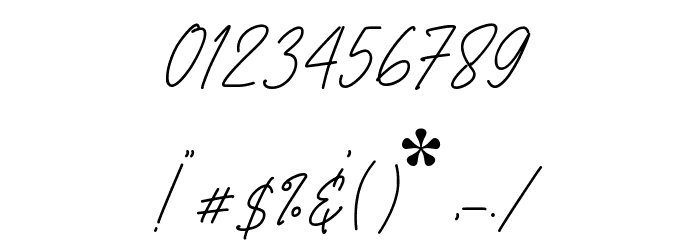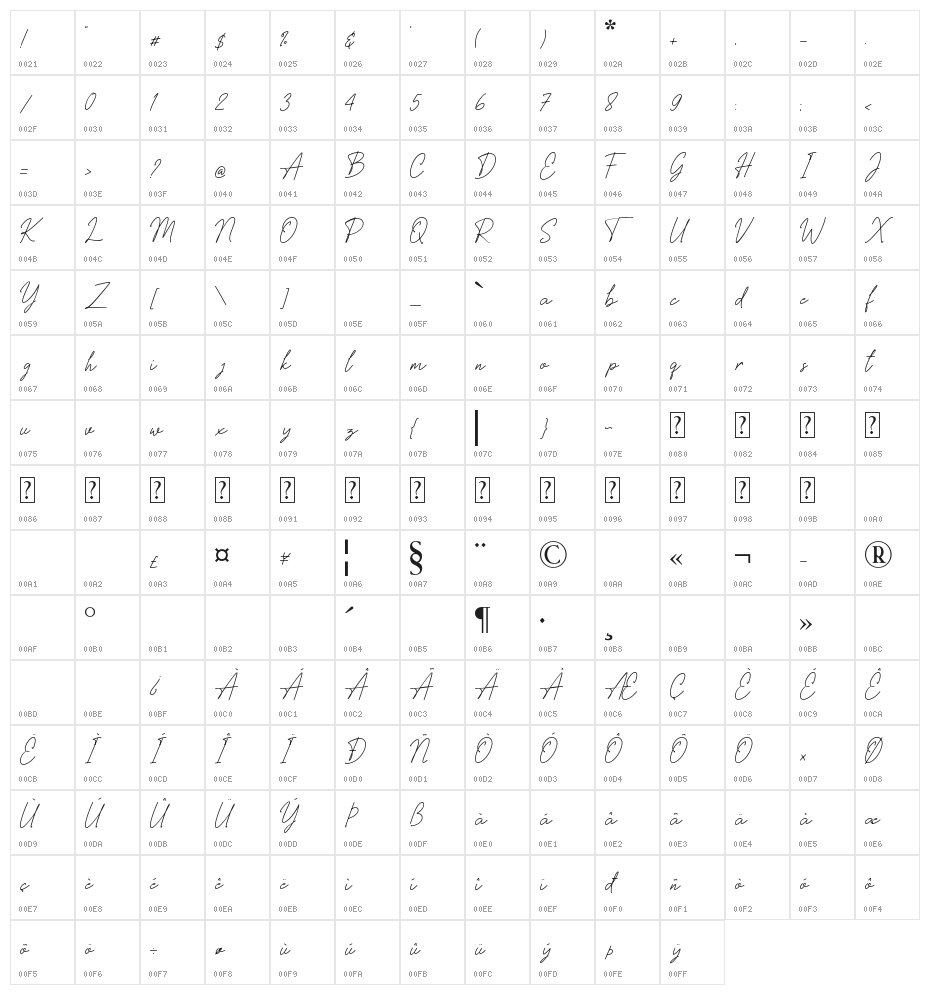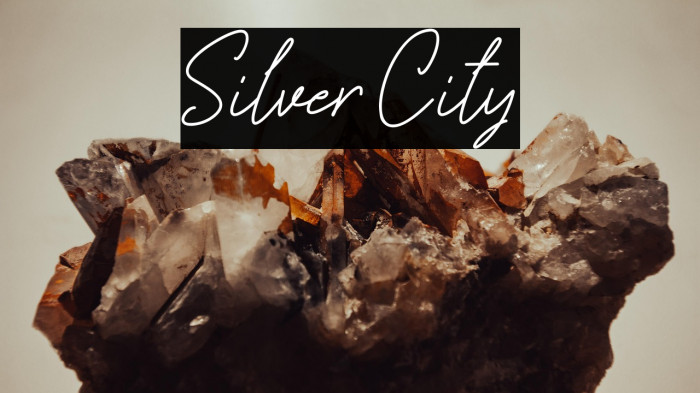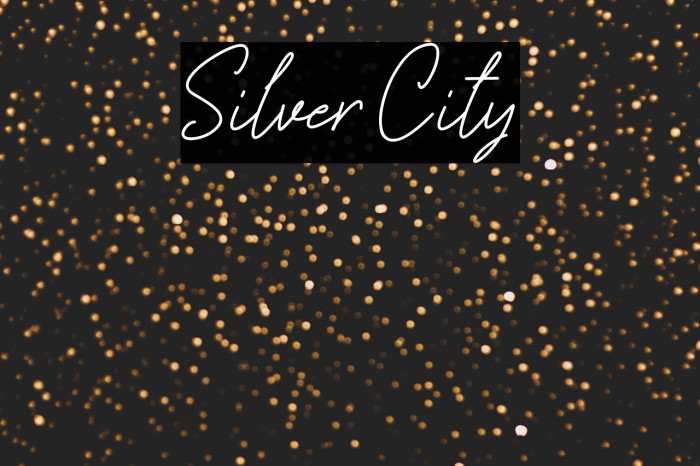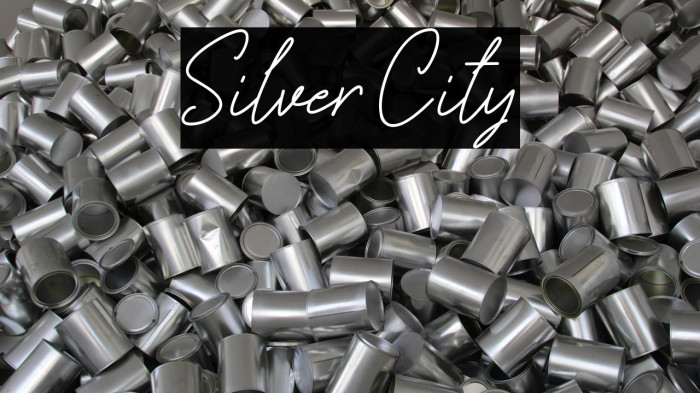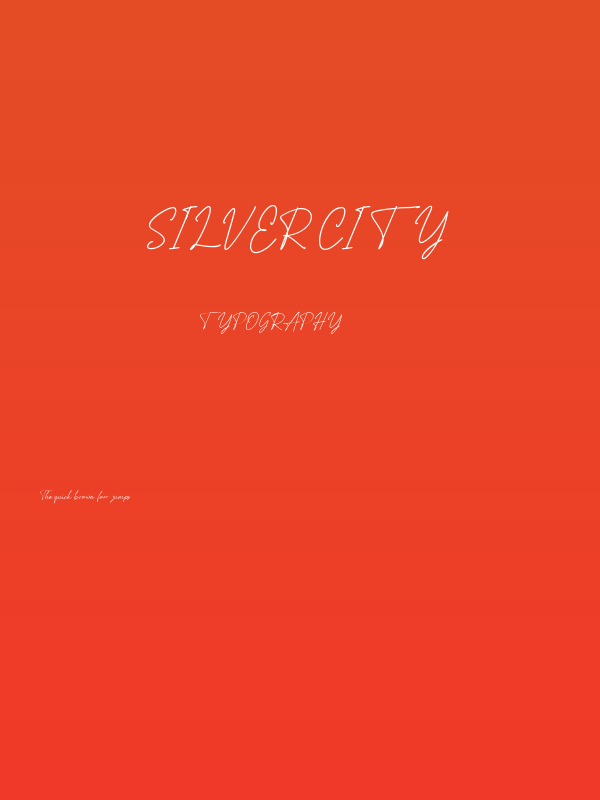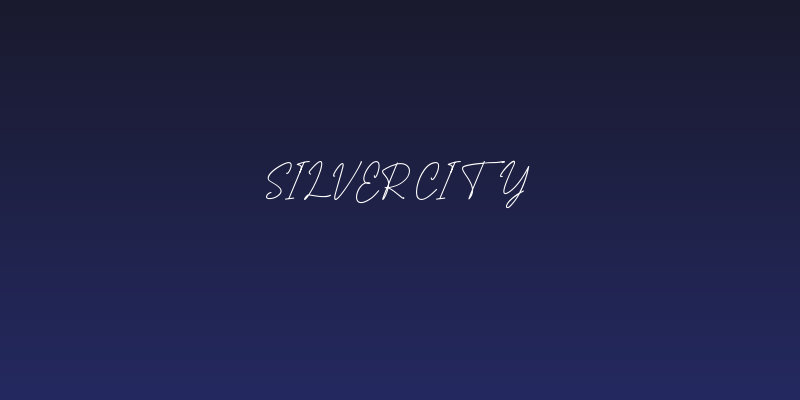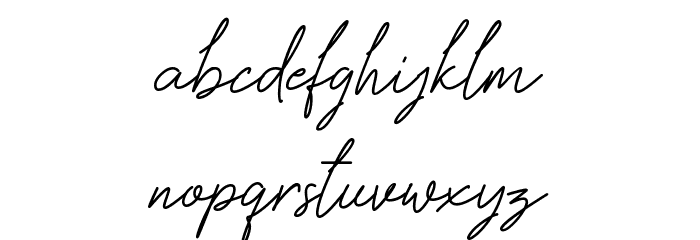
Silver City Font
Silver City Description
This elegant script font features a flowing, handwritten style that exudes sophistication and charm. The characters are gracefully connected, with smooth curves and delicate strokes that mimic the fluidity of natural handwriting. The uppercase letters are slightly more ornate, adding a touch of formality, while the lowercase letters maintain a consistent, flowing rhythm. The numerals and special characters are designed to complement the overall aesthetic, ensuring a cohesive look across all text. This font is perfect for projects that require a personal touch, such as invitations, greeting cards, and branding materials.